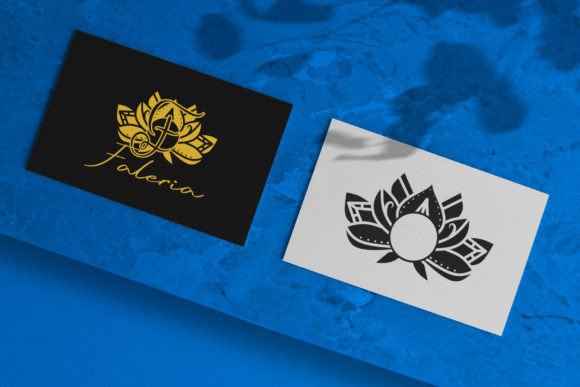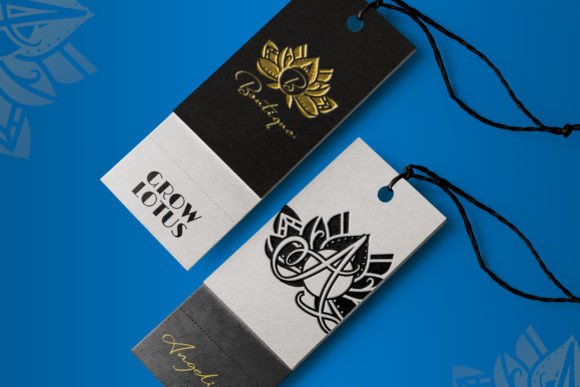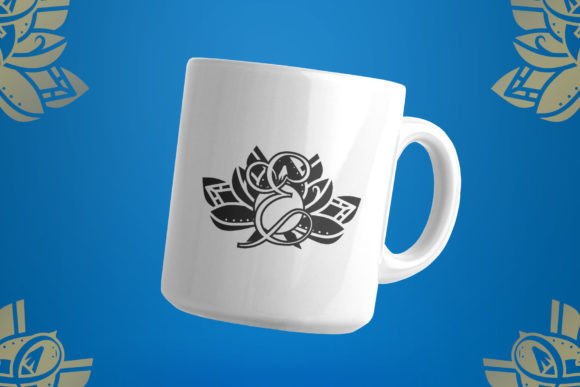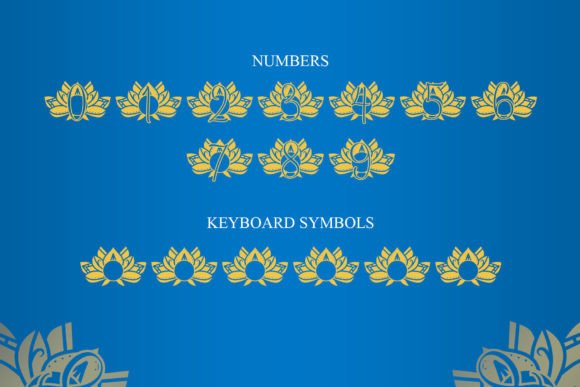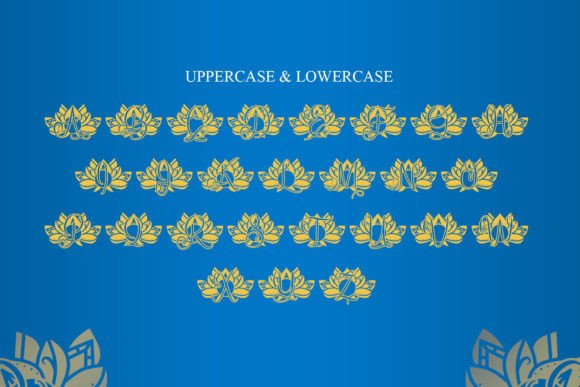
Introducing Grow Lotus Mandala Monogram Font: Elevate Your Designs with Elegance
Are you a designer, crafter, or DIY enthusiast looking for a unique and elegant font to elevate your projects? Look no further than the Grow Lotus Mandala Monogram Font. This stunning decorative font is inspired by the intricate beauty of mandala art, making it perfect for adding a touch of sophistication to your craft, logo, or collection.
What is Grow Lotus Mandala Monogram Font?
Grow Lotus Mandala Monogram Font is a carefully crafted font that combines the serenity of lotus flowers with the intricate patterns of mandala art. The result is an elegant and unique monogram font that is sure to impress. With its delicate lines, swirling patterns, and floral motifs, this font is perfect for creating beautiful and eye-catching designs.
Key Features of Grow Lotus Mandala Monogram Font
- Elegant and Unique Design: The Grow Lotus Mandala Monogram Font boasts an elegant and unique design that is sure to make your projects stand out.
- Mandala-Inspired: The font’s design is inspired by the intricate patterns and beauty of mandala art, adding a touch of spirituality and sophistication to your designs.
- Lotus Flower Motifs: The font features beautiful lotus flower motifs, which symbolize growth, beauty, and spiritual evolution.
- Perfect for Logos and Branding: The Grow Lotus Mandala Monogram Font is ideal for creating stunning logos, monograms, and branding materials that exude elegance and sophistication.
- Crafting and DIY Projects: This font is also perfect for crafters and DIY enthusiasts who want to add a personal touch to their projects, such as handmade cards, gift tags, and scrapbooking.
How to Use Grow Lotus Mandala Monogram Font
Using the Grow Lotus Mandala Monogram Font is easy and straightforward. Here are a few ways you can incorporate it into your designs:
- Logos and Branding: Use the font to create stunning logos, monograms, and branding materials that reflect your brand’s personality and style.
- Crafting and DIY Projects: Add a personal touch to your handmade cards, gift tags, scrapbooking, and other crafting projects with this beautiful font.
- Graphic Design: Use the font in your graphic design projects, such as brochures, flyers, and posters, to add a touch of elegance and sophistication.
Why Choose Grow Lotus Mandala Monogram Font?
With so many fonts available, why choose Grow Lotus Mandala Monogram Font? Here are a few reasons:
- Unique and Elegant Design: This font offers a unique and elegant design that is sure to make your projects stand out.
- High-Quality: The font is carefully crafted to ensure high-quality and crisp lines, making it perfect for printing and digital use.
- Versatile: The font is versatile and can be used in a variety of projects, from logos and branding to crafting and DIY projects.